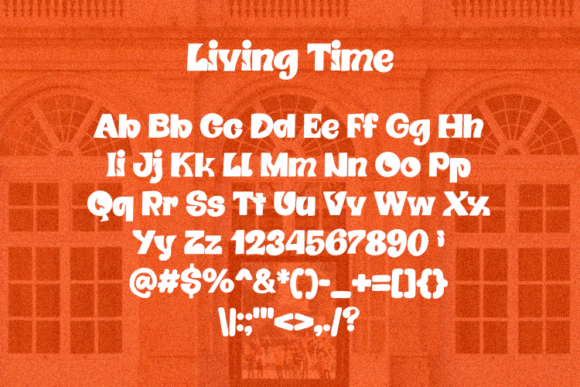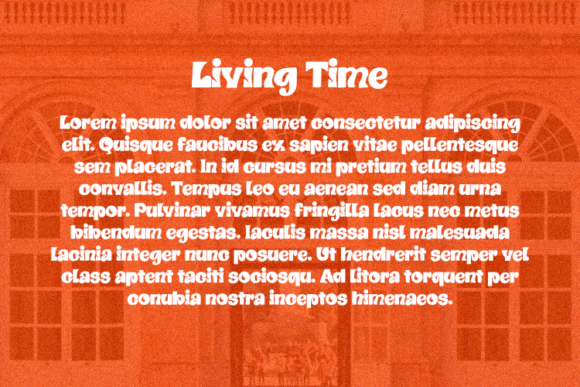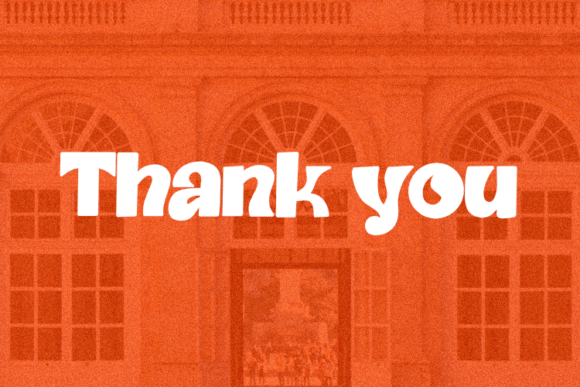
Introduction to Living Time Font
Have you ever stared at a blank page, struggling to find the perfect font to bring your creative project to life? The blank page can be daunting, but it’s also a thrilling moment of possibility. That’s where the Living Time Font comes in – a modern and elegant typeface designed to make your design journey smoother and more enjoyable.
| 👤 Author | Eric Kusuma |
With its superior readability across a wide range of media, the Living Time Font is a valuable design resource for creatives. Whether you’re working on a free download template, a high-quality brochure, or a design project with a transparent background, this font is sure to deliver. Its excellent flexibility makes it a must-have for designers who value high-quality typography and effortless cross-platform compatibility.
- Unique, modern design aesthetic, perfect for contemporary creative projects and branding initiatives.
Honest Review: Living Time Font
I recently came across the Living Time Font, and I must say it’s a great addition to any design resource collection. This free download offers a lot of potential for creative projects, from logos to typography-based designs.
- ✨ The font has a unique, hand-drawn feel that can add a personal touch to any design.
- ✨ The high quality of the font ensures that it will look great even at larger sizes, making it perfect for headings and titles.
- ✨ The font is also highly customizable, with a wide range of weights and styles to choose from.
- ⚠️ The font may not be suitable for designs that require a transparent background, as the lines and shapes can be quite thick and may not blend in seamlessly.
- ⚠️ The font is also quite ornate, which can make it difficult to read at smaller sizes.
Overall, I think the Living Time Font is a great choice for designers who want to add a touch of elegance and sophistication to their creative projects. With its unique style and high quality, it’s definitely worth checking out.
The Living Time Font is a high-quality design resource that can add a unique touch to your creative project. It features a transparent background, making it versatile for various design applications.
To get the most out of the Living Time Font, experiment with different font sizes, colors, and combinations. You can also use it in conjunction with other design elements to create a unique visual identity.
The Living Time Font is ideal for creative projects such as:
- Typography-based posters and graphics